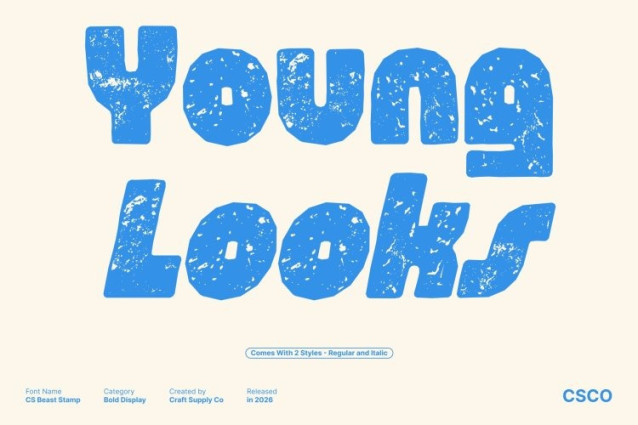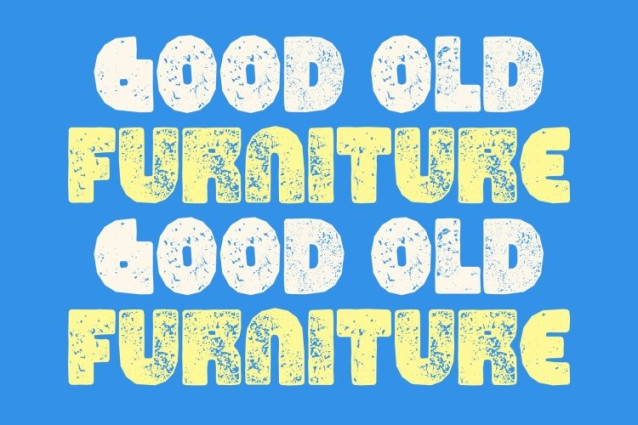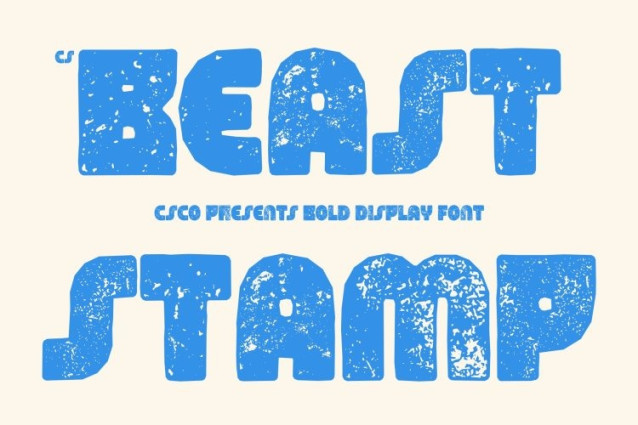
CS Beast Stamp Font
CS Beast Stamp Font This is a bold retro display font inspired by the energetic typography of the 1990s. Its strong geometric letterforms echo the vibrant aesthetics of arcade games, TV commercials, magazine headlines, and classic product packaging. Enhanced with a stamp effect, the font gains textured depth and subtle imperfections, evoking the look of vintage prints and worn posters while amplifying its playful, punchy personality.
Retro Roots with a Textured Contemporary Twist
While deeply rooted in ’90s nostalgia, this font maintains a contemporary balance through clean construction and solid proportions. The stamped texture adds a handcrafted, old-print feel that contrasts beautifully with its structured forms, making it adaptable for modern branding, retro-themed events, and pop-style social media graphics.
Designed to Pop, Play, and Leave an Impression
With chunky strokes, clear structure, and bold presence, this font thrives in designs that demand attention and joy. The combination of retro geometry and distressed stamp texture gives a daring, expressive tone perfect for children’s products, music visuals, streetwear branding, packaging, and playful promotional materials.
Celebrate Bold Creativity with Vintage Energy
This font invites designers to revisit a colorful era when bold typography ruled visual culture. Infused with vintage stamped character and ’90s-inspired strength, it transforms every layout into a lively statement filled with nostalgia, confidence, and expressive charm.